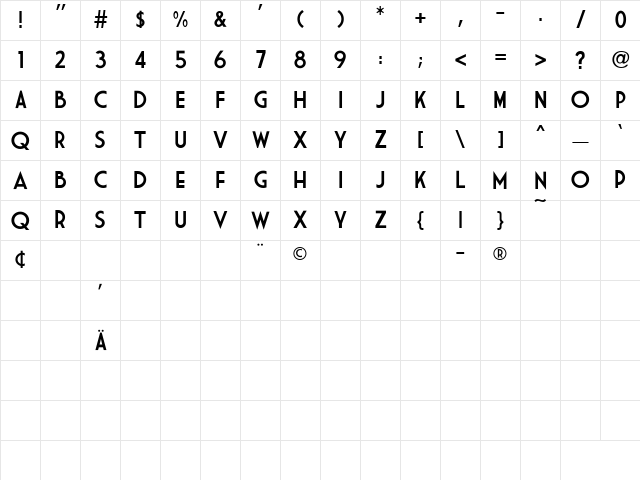
Market Deco Regular
Designer: Steve Ferrera
Design Context for Market Deco
Market Deco is a composed and adaptable typeface that performs quietly and consistently across a wide range of design contexts.